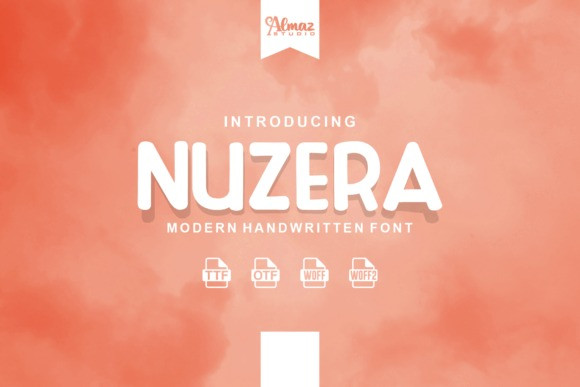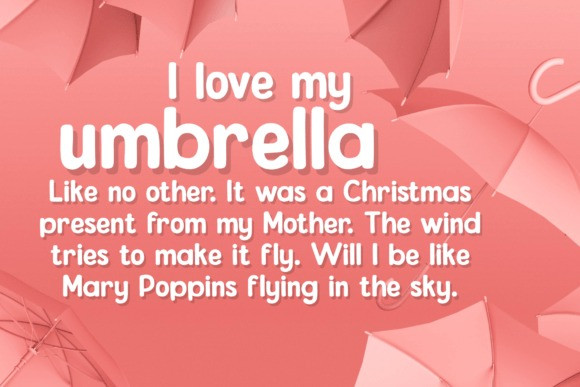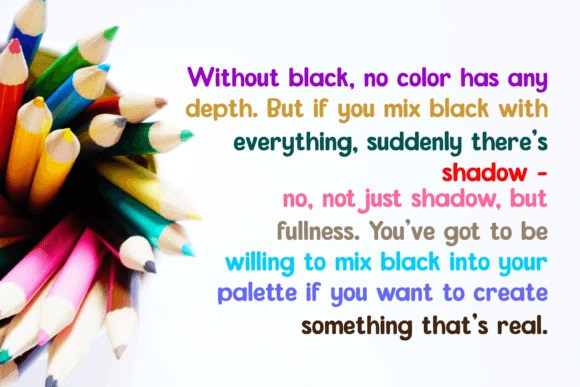
Nuzera Font
Nuzera made for text display purposes inspired by handwritten font. We crafted this font for your design project. Support Multilanguage and you can easily create a simple, clean, cool logo, branding, and promotion with this font. Nuzera brings a modern and strong impression to your design make this font suitable as the main text / header text on a website or layout design. The font is suitable for blog titles, headers, promotional text, call to actions and more.